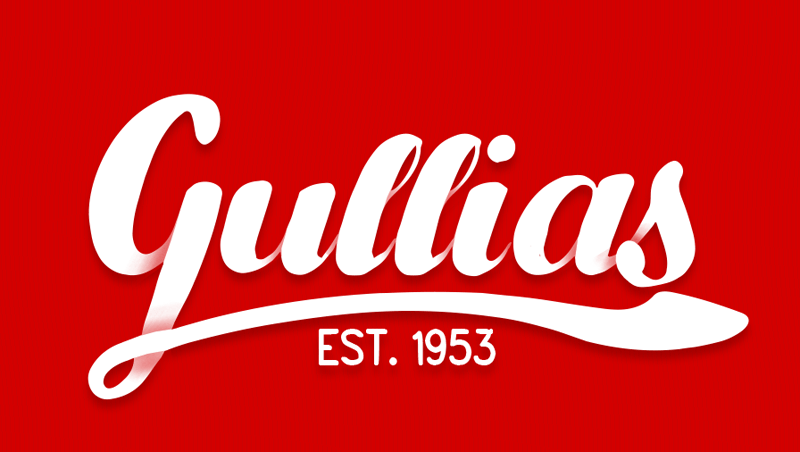
Preview and download Gullias Font. Created by Leonard Posavec - LeoSupply.co in Script Old School styles with Free for personal use license.
Very interesting to use for logos, name tags, handwritten quotes, product packaging, merchandise, social media & greeting cards .Also, ideal to make t-shirts design and other clothing products. If you want to use it in commercial purpose please buy licence here : http://www.leosupply.co Please report if you find any bugs or have some problems with this font. This font is only for PERSONAL use |